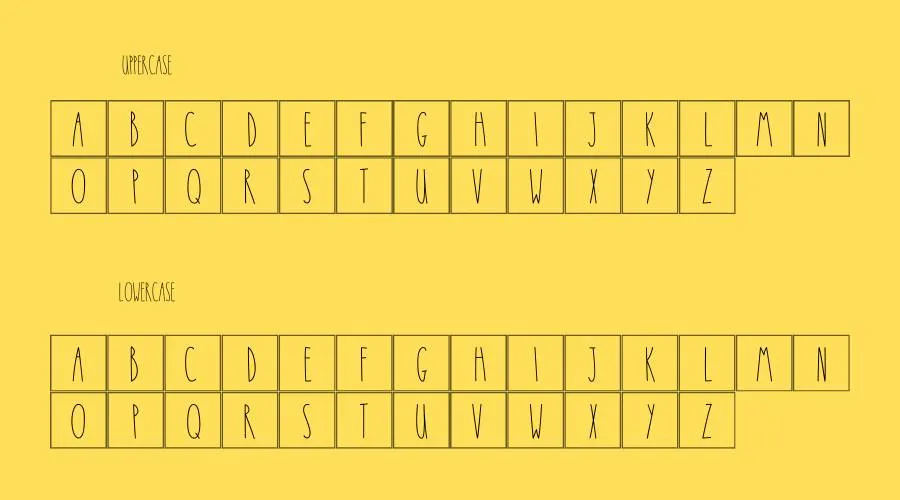
About Rae Dunn Font
Rae Dunn Font is designed by Justine Lazo via Jusebox. This amazing font belongs to the script font family. This design collection will give your task a cool and unique look. With its flexible design and multifunctional capabilities, this font pairs well with other fonts without losing its natural style.